Traditional tattoo fonts have long been a cornerstone of artistic expression in the world of body art, carrying deep cultural significance and timeless aesthetic appeal. These distinctive lettering styles have evolved from sailors’ tattoos and maritime traditions, becoming an iconic element of tattoo design that continues to captivate both artists and enthusiasts alike.
The Rich History of Traditional Tattoo Typography
The origins of traditional tattoo font can be traced back to the early 20th century, particularly among sailors and maritime workers. These bold, distinctive letterforms emerged as a powerful means of personal storytelling and cultural identity. Sailors would often get tattoos with names, nautical themes, and personal mottos using a specific style of lettering that became synonymous with maritime culture.
Characteristics of Classic Traditional Tattoo Lettering
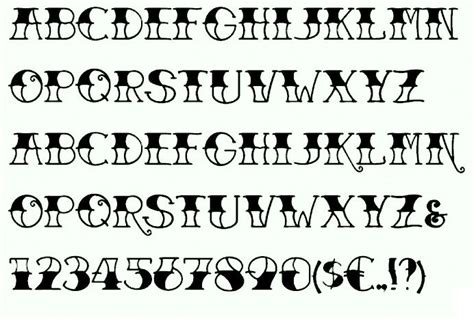
Traditional tattoo fonts are characterized by several unique elements:
- Bold, thick lines that stand out clearly on the skin
- Minimal decorative elements
- High contrast and readability
- Typically uppercase letters with a robust, masculine appearance
Popular Styles of Traditional Tattoo Fonts
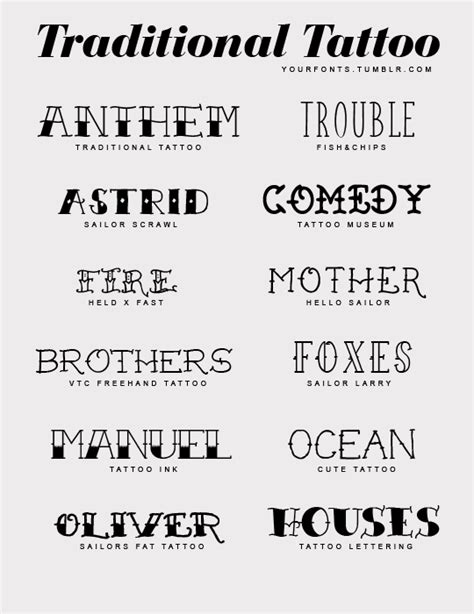
Over the years, several distinct styles have emerged in the world of traditional tattoo font design:
Old School Americana
This style features bold, blocky letters with minimal flourishes. Popularized by legendary tattoo artists like Sailor Jerry, these fonts often incorporate a sense of rugged individualism and maritime heritage.
Chicano Lettering
Originating from Chicano culture, this font style is characterized by elaborate, carefully crafted script lettering. It combines intricate calligraphy with a distinctive cultural identity, often used for names, phrases, and meaningful quotes.
Selecting the Perfect Traditional Tattoo Font
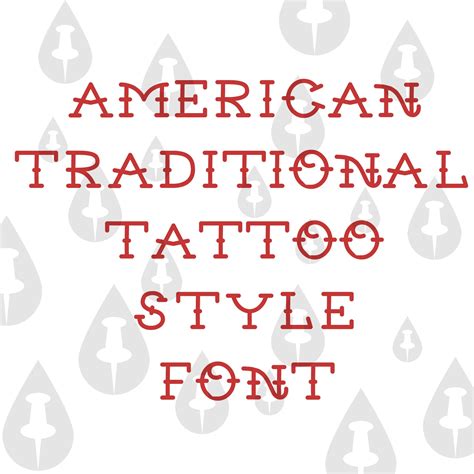
Choosing the right font is crucial in tattoo design. Consider these factors:
- Personal meaning and significance
- Body placement
- Size and scale of the tattoo
- Your individual aesthetic preferences
The art of traditional tattoo fonts continues to evolve, blending historical techniques with modern design sensibilities. While rooted in historical traditions, these fonts remain a powerful form of personal expression, allowing individuals to tell their stories through carefully crafted letterforms.
What makes a traditional tattoo font unique?
Traditional tattoo fonts are characterized by bold, thick lines, minimal decorative elements, and high readability, often drawing from maritime and cultural traditions.
How do I choose the right traditional tattoo font?
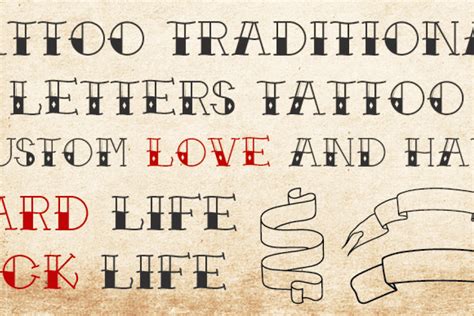
Consider the personal meaning, body placement, tattoo size, and your individual aesthetic preferences when selecting a traditional tattoo font.
Are traditional tattoo fonts still popular?
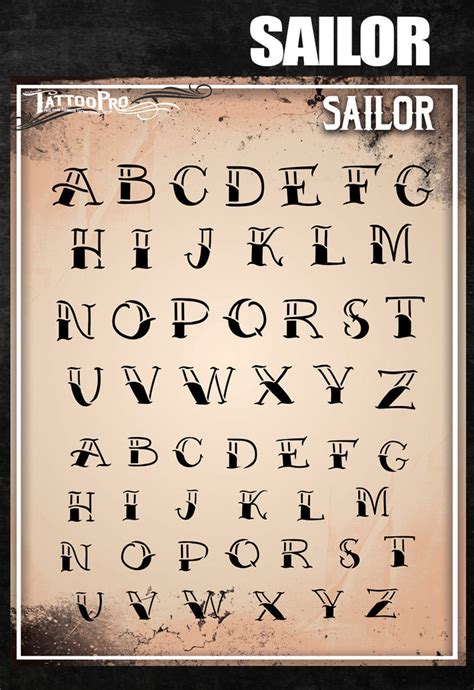
Yes, traditional tattoo fonts remain highly popular, continuing to evolve while maintaining their connection to historical artistic traditions.